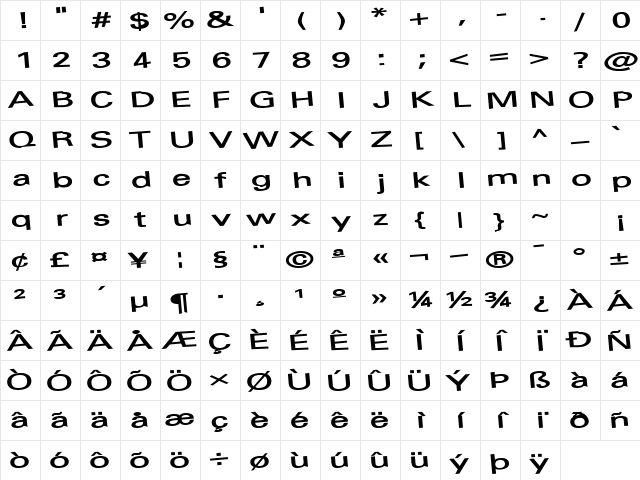
BarnYard77 Bold Free Font
BarnYard77 Bold
Design Context for BarnYard77
BarnYard77 is a composed and adaptable typeface that performs quietly and consistently across a wide range of design contexts. Its bold stroke weight gives it real presence on the page.
Pro Tip: Use BarnYard77 in both headline and body roles to test its range before committing to a single application.